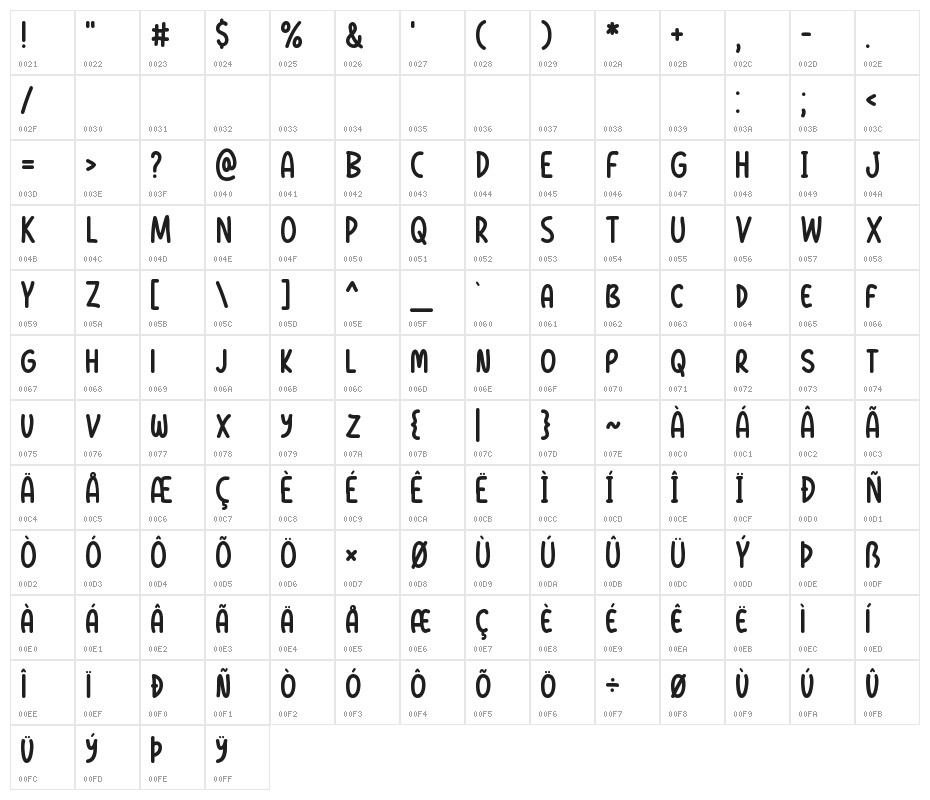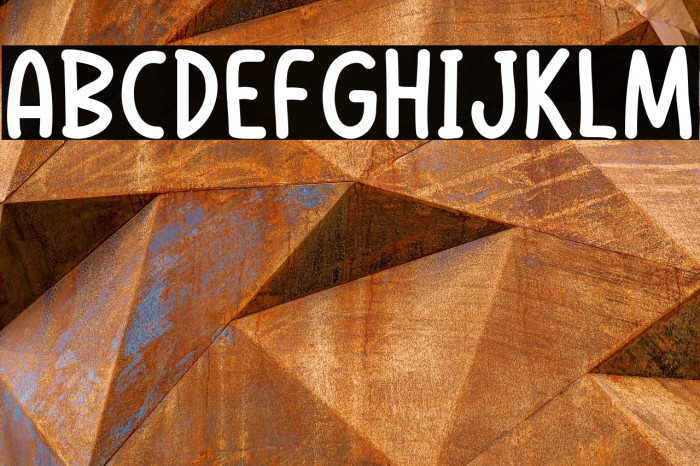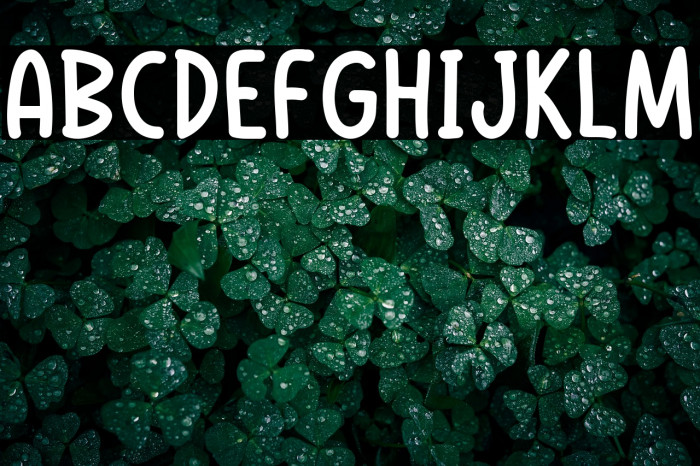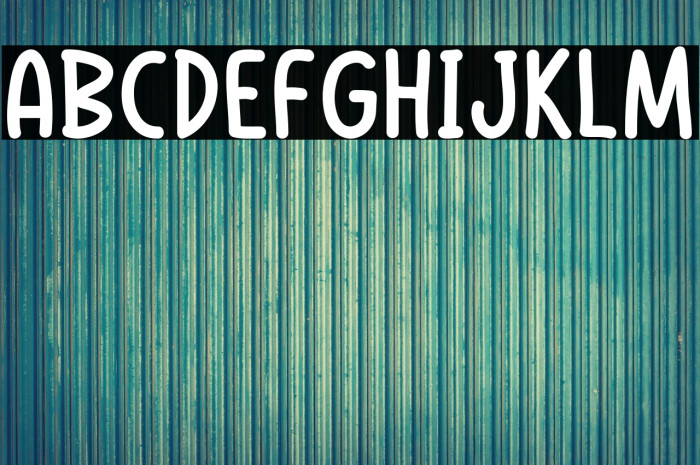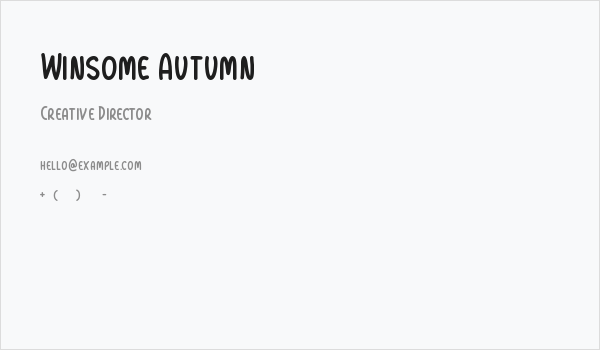
Winsome Autumn Font
Winsome Autumn Description
This playful and rounded font features a handwritten style that exudes warmth and friendliness. The characters are bold and slightly irregular, giving them a casual and approachable feel. The strokes are consistent in width, contributing to a uniform appearance, while the rounded edges soften the overall look. The font includes a full set of uppercase and lowercase letters, numbers, and a variety of special characters, making it versatile for different uses. Its informal style is perfect for projects that aim to convey a sense of fun and creativity.
| Proposed Projects | Ideal for children's books, greeting cards, playful branding, and social media graphics. |